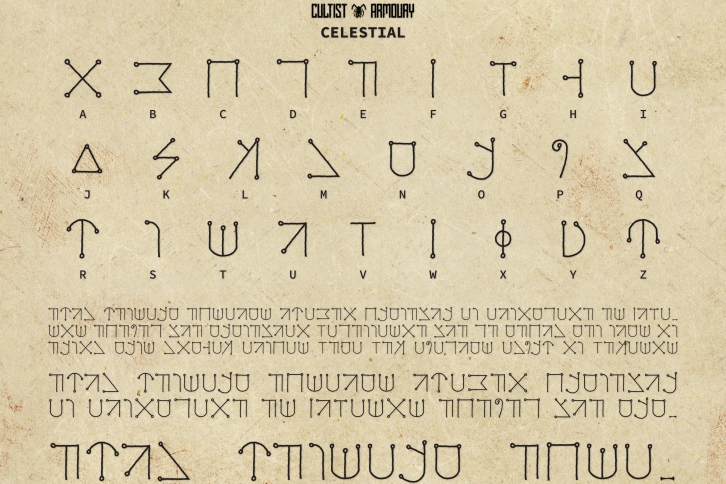
Celestial is a cool display font based on The Celestial Alphabet, also known as Angelic Script, an alphabet described by Heinrich Cornelius Agrippa in the 16th century.
It is perfect for fictional grimoires, props, and handouts from roleplaying games. It may also be used for early style printed texts, emphasis and subtitles, headlines and other display uses.